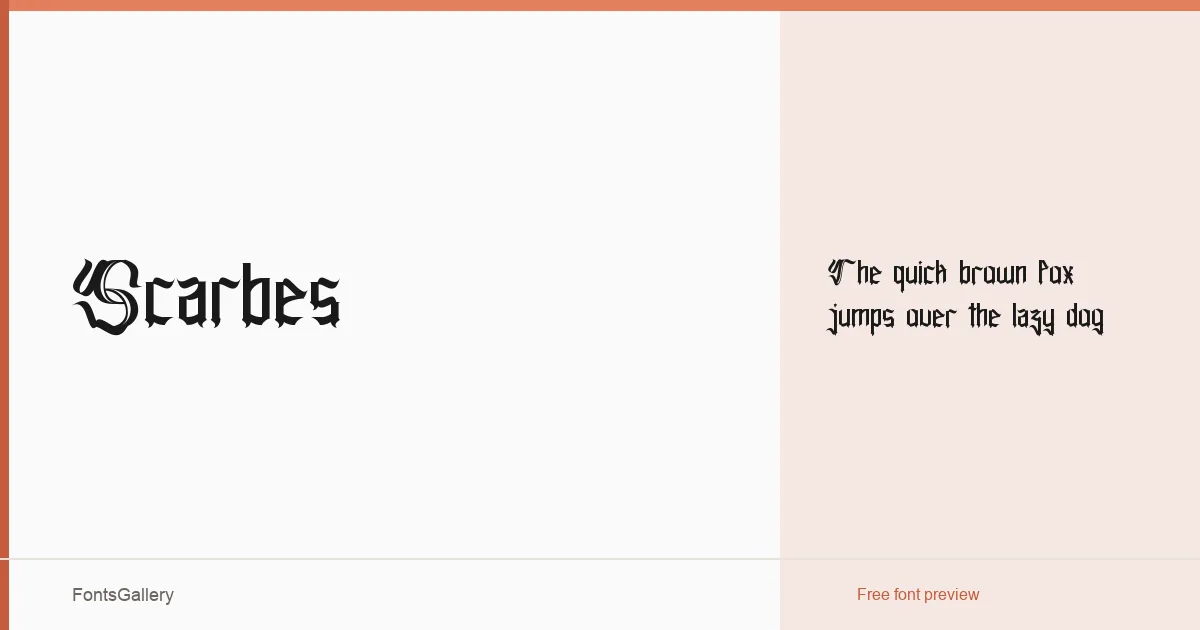
About Scarbes Font
Scarbes is a bold Blackletter typeface crafted by Dhabee Studio and published through Yumnacreative. It combines the timeless heritage of classic Blackletter tradition with a gritty, grunge-infused character that feels both vintage and powerfully modern. The result is a striking display font that commands attention across a wide range of creative applications.
Scarbes draws on the ornate, angular letterforms associated with traditional Blackletter style, rendered with a bold weight that emphasizes strength and visual impact. The grunge and vintage qualities in its character give each letter a raw, textured energy that sets it apart from more polished typefaces. This classic-yet-edgy aesthetic makes it a compelling choice for designs that need to convey authority, heritage, and attitude simultaneously.
Scarbes excels as a display typeface for logos, posters, headlines, branding projects, and T-shirt designs where bold visual impact is essential. Its dramatic presence makes it especially well suited for music, fashion, streetwear, and lifestyle brands looking to project a vintage or rebellious identity. For balanced typographic contrast, Scarbes pairs effectively with the clean neutrality of Helvetica or the complementary style of Aresink.